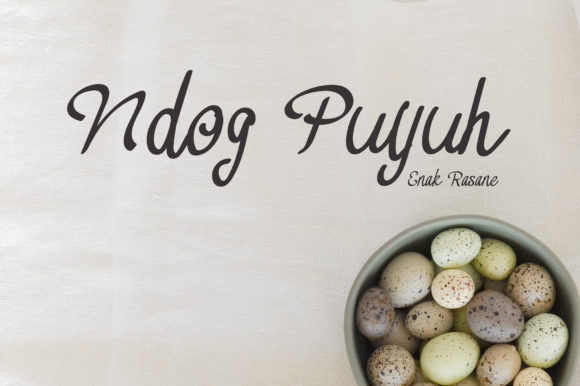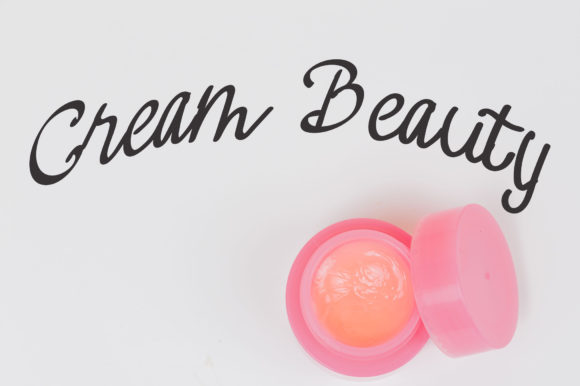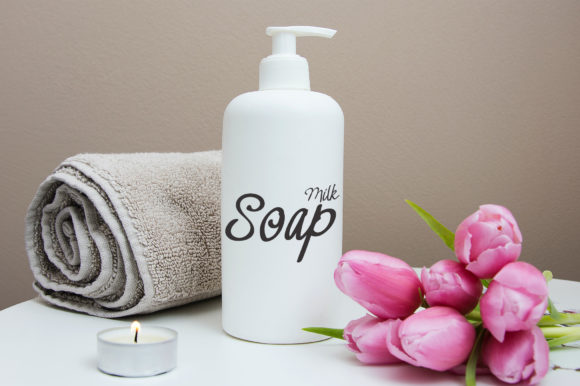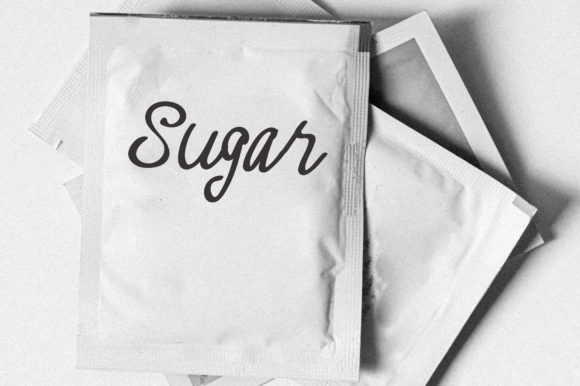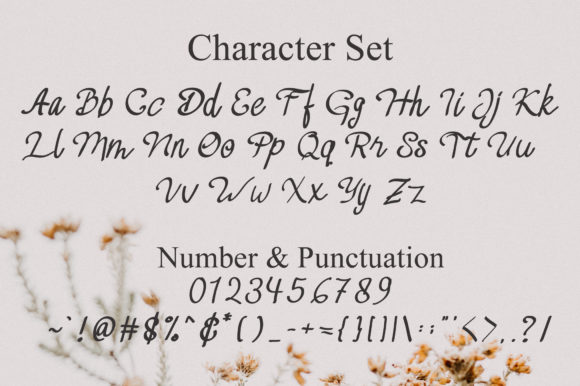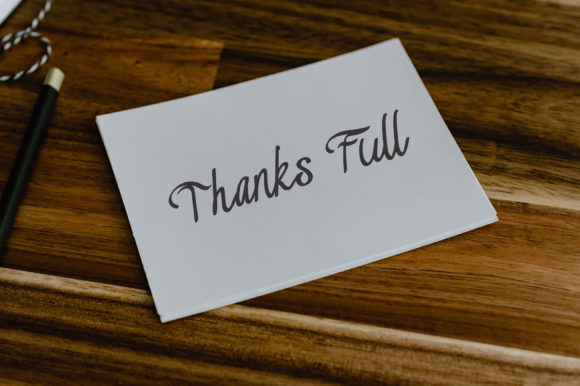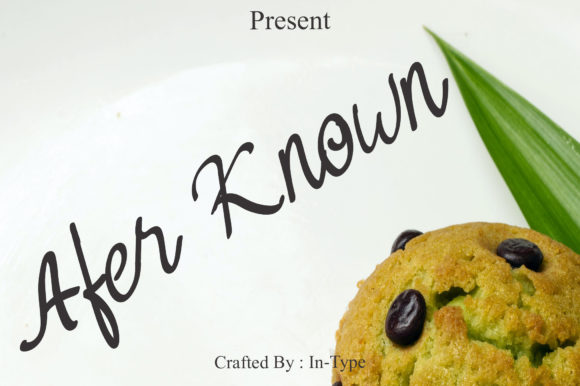
The Elusive Font: A Designer’s Quest for the Perfect Script
I’ll never forget the frustration of working on a project, pouring my heart and soul into every detail, only to hit a roadblock: finding the perfect font. My client wanted something playful, yet elegant; something that would make their brand stand out. I scoured the internet, tried font after font, but nothing seemed quite right. That was until I stumbled upon After Known, a lovely script font that has since become a staple in my design toolkit.
A First Impression: What I Love About After Known
After Known is a charming script font that features playful characters dancing along the baseline. It’s the perfect combination of whimsy and sophistication. Here are just a few things I love about this font:
- ✨ Elegant, flowing lines that give it a sense of movement
- 💃 Perfect for creative projects, such as invitations, posters, and social media graphics
- 🎨 Works beautifully with a variety of design styles, from minimalist to ornate
The Honest Review: A Few Quirks to Consider
While After Known is an excellent font, it’s not without its quirks. Here are a few things to keep in mind:
- 🤔 Some characters, such as the lowercase “g” and “y”, have a slightly different baseline than the rest of the font. This can take some getting used to, but it’s not a deal-breaker.
- ⚠️ The font doesn’t have a huge range of weights, so it may not be suitable for projects that require a lot of variation in font size.
The Designer Inspiration Behind After Known
While I couldn’t find any information on the specific designer behind After Known, it’s clear that they were inspired by the beauty of handwritten script fonts. The font’s playful, dancing characters are reminiscent of classic script fonts from the 19th century, but with a modern twist.
| Font Name | After Known Font |
| Author | in-type |
| What type of projects is After Known best suited for? | After Known is perfect for creative projects, such as invitations, posters, social media graphics, and more. |
| Does After Known have a lot of OpenType features? | Yes, After Known has a range of OpenType features, including glyphs and stylistic alternates, that can add more personality to your text. |